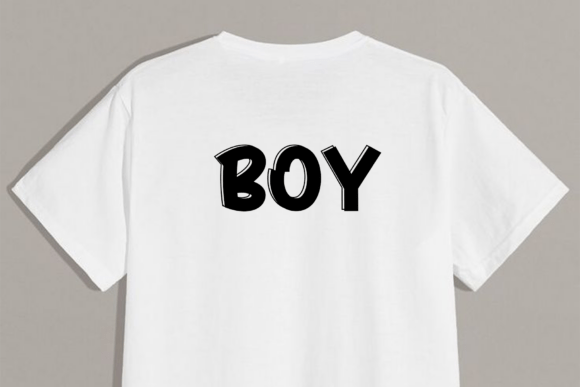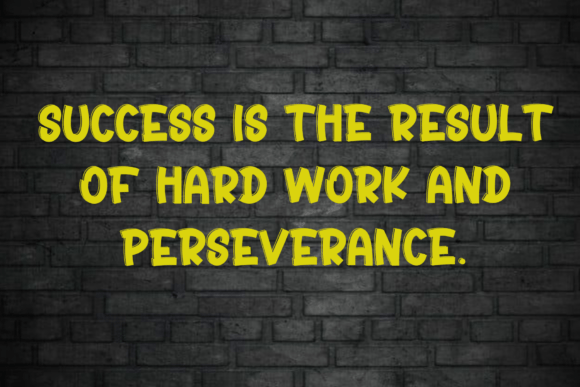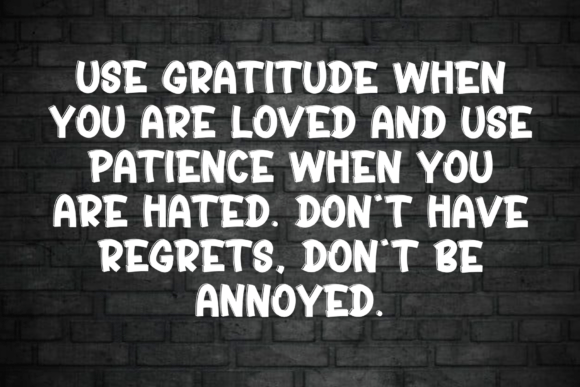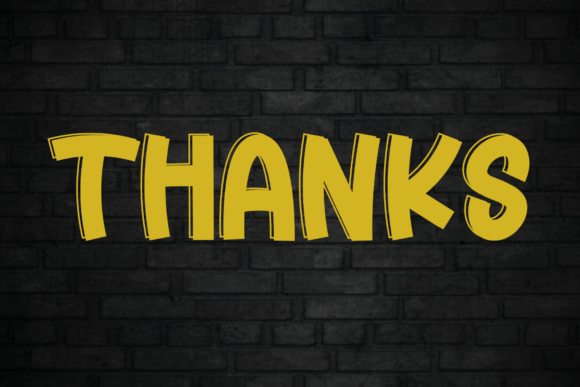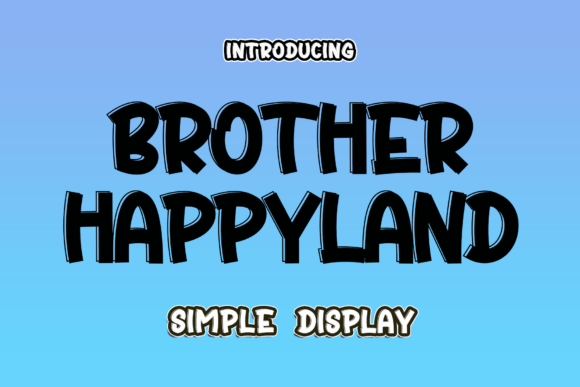
Introducing Brother Happyland Font: The Ultimate Choice for Fun and Playful Designs
Are you tired of using the same old fonts for your designs? Look no further than Brother Happyland Font, a fun and cheerful display font that’s sure to brighten up any project. With its chunky letterforms and playful vibe, this font is perfect for designers and crafters who want to add a touch of whimsy to their work.
What Makes Brother Happyland Font So Special?
Brother Happyland Font is a unique and eye-catching font that’s specifically designed to bring a smile to people’s faces. Its clean style and cartoonish character make it easy to read, while its playful vibe keeps things lighthearted and engaging. Whether you’re working on a children’s book, a game, a classroom poster, or a branding project, this font is sure to make your design stand out.
Perfect for Children’s Books and Games
Brother Happyland Font is an excellent choice for children’s books and games. Its chunky letterforms and playful vibe make it perfect for titles, headings, and body text. The font’s clean style ensures that the text is easy to read, even for young children. Plus, its fun and cheerful personality will help to engage kids and make your content more enjoyable.
Great for Classroom Posters and Educational Materials
Teachers and educators will love Brother Happyland Font for creating classroom posters, educational materials, and other visual aids. The font’s playful vibe and cartoonish character make it perfect for engaging students and adding a touch of fun to learning materials. Plus, its clean style ensures that the text is easy to read, even from a distance.
Ideal for Joyful Branding and Marketing
Brother Happyland Font is also an excellent choice for brands that want to convey a sense of fun and playfulness. Whether you’re launching a new product, promoting a service, or simply want to refresh your brand identity, this font is sure to help you connect with your audience. Its cheerful personality and clean style make it perfect for use in logos, taglines, and other marketing materials.
Key Features of Brother Happyland Font
- Chunky letterforms: Brother Happyland Font features chunky letterforms that are perfect for display text and headings.
- Playful vibe: The font’s playful vibe and cartoonish character make it perfect for fun and engaging designs.
- Clean style: Despite its playful personality, Brother Happyland Font has a clean style that ensures the text is easy to read.
- Easy to read: The font’s clean style and simple letterforms make it easy to read, even for young children.
- Use it for display text: Brother Happyland Font is perfect for display text, such as headings, titles, and captions.
- Experiment with colors: The font’s playful vibe lends itself well to bright and bold colors. Experiment with different color schemes to find the one that works best for your design.
- Pair it with other fonts: Brother Happyland Font pairs well with other fonts, such as sans-serif fonts or script fonts. Experiment with different font combinations to find the one that works best for your design.
Brother Happyland Font is a fun and cheerful display font that’s perfect for designers and crafters who want to add a touch of whimsy to their work. With its chunky letterforms, playful vibe, and clean style, this font is great for children’s books, games, classroom posters, and joyful branding. Whether you’re a professional designer or a DIY crafter, Brother Happyland Font is sure to bring a smile to your face and help you create engaging and fun designs.